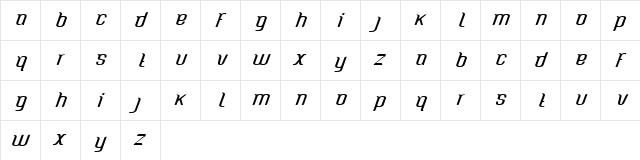
Caspian Sea Italic
| Designer | Mahir Huseynov |
Design Context for Caspian Sea Typeface
Caspian Sea takes a measured approach to typography — its balanced proportions and neutral character make it a reliable workhorse for both digital and print work. The dynamic lean of this cut emphasises speed and emphasis in any layout.